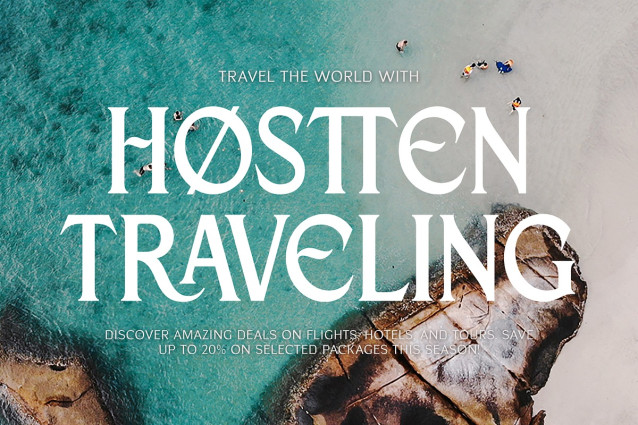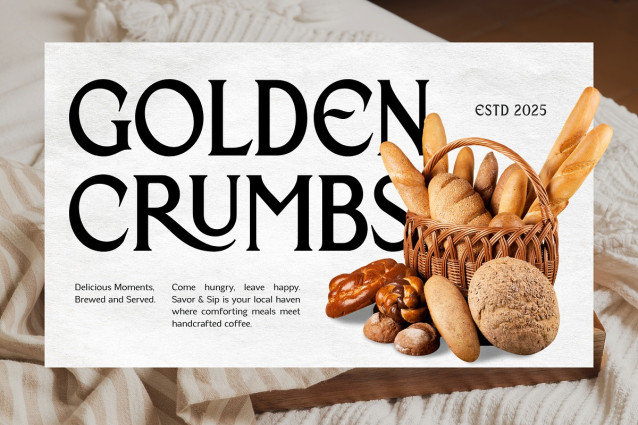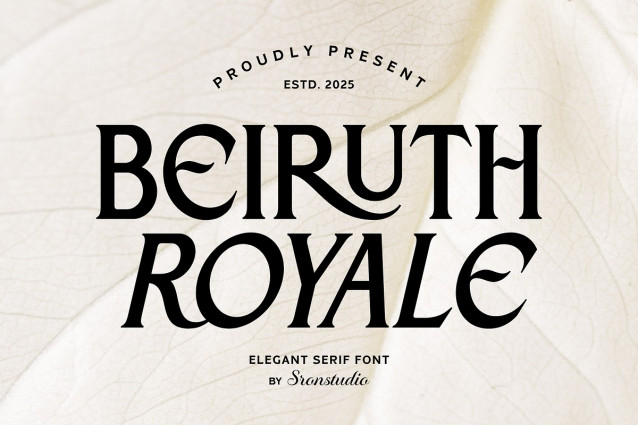
Beiruth Font
Beiruth Font is a classic serif font that blends timeless elegance with modern refinement. Featuring balanced proportions, clean serifs, and graceful letterforms, this font is perfect for editorial design, branding, book covers, logos, and sophisticated layouts. Beiruth delivers a professional and polished look, making it ideal for projects that require clarity, style, and enduring appeal.